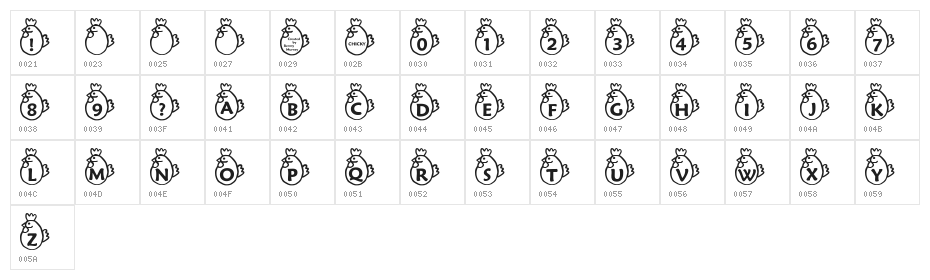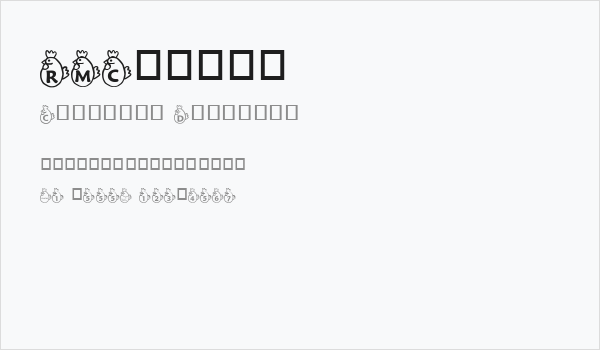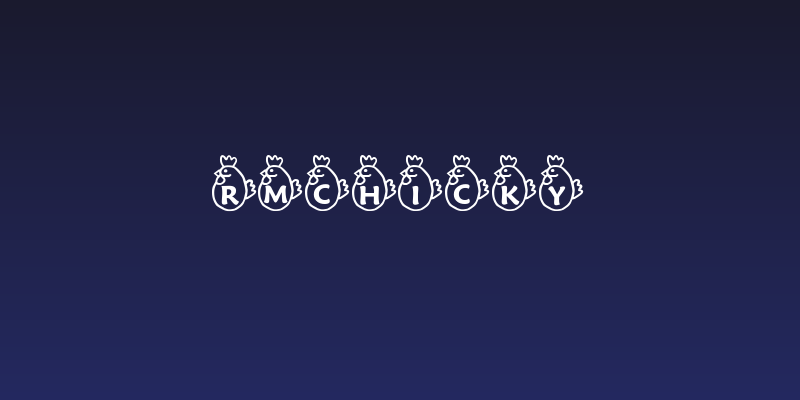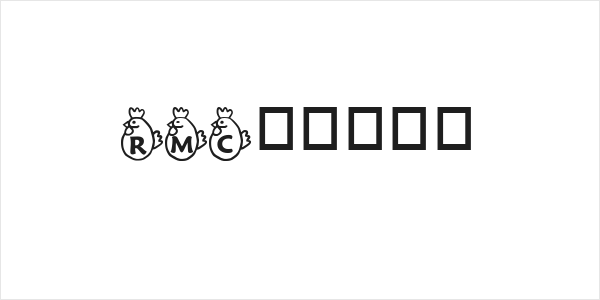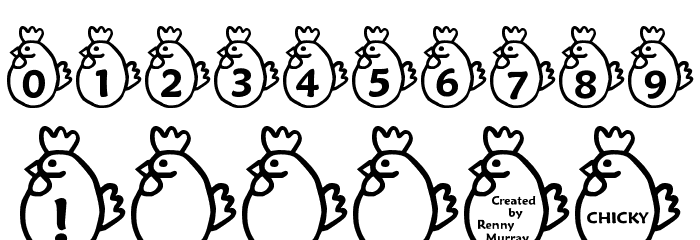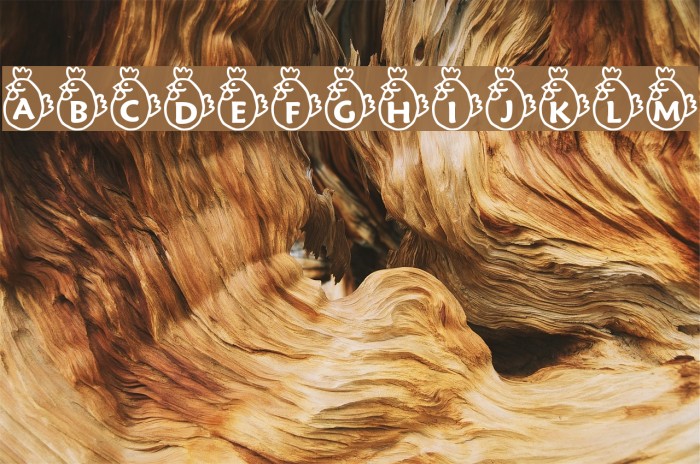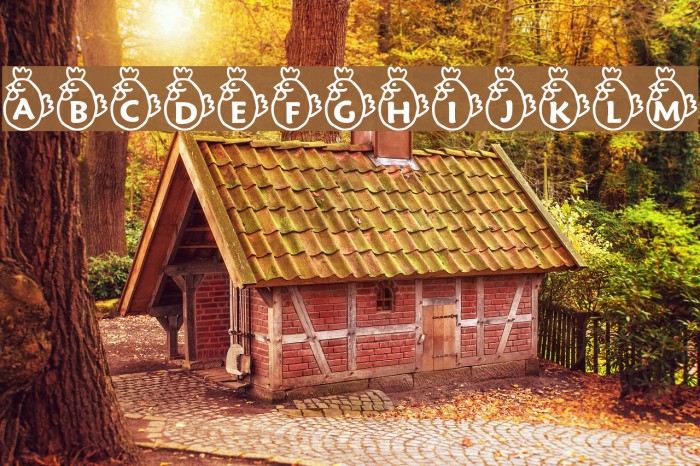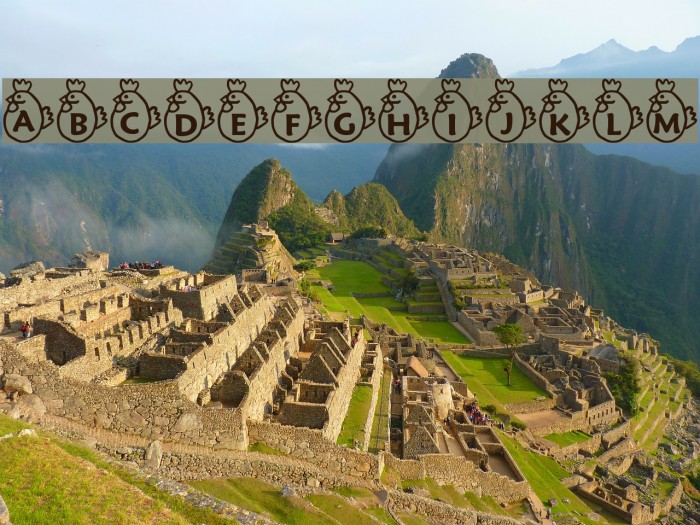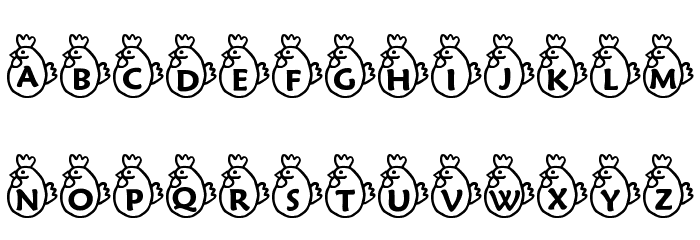
RMChicky Font
RMChicky Description
This playful and whimsical font features each character enclosed within a cartoon chicken outline, adding a fun and lighthearted touch to any design. The letters and numbers are bold and clear, making them easily readable despite the decorative elements. The font includes uppercase letters, lowercase letters, numbers, and a selection of special characters, all maintaining the consistent theme of being encased in a chicken shape. This unique design is perfect for projects that aim to convey a sense of humor or playfulness, such as children's books, party invitations, or themed event materials. The font's distinct style ensures it stands out, making it ideal for eye-catching headlines or logos.
| Proposed Projects | Children's books, party invitations, themed event materials, playful logos. |